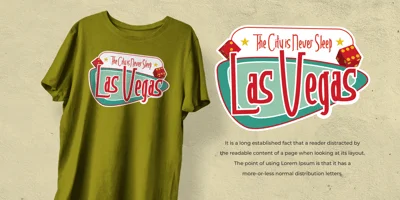
Bestie Gurls Font
Bestie Gurls Font is perfect for friendship celebration branding, girls' night out event posters, bestie photo album designs, friendship jewelry packaging, sisterhood club materials, girls' sleepover party invitations, BFF merchandise graphics, and heartwarming friendship marketing campaigns. This joyful typeface excels in applications where friendship bonds and sisterly connection are essential.
What makes Bestie Gurls Font so exciting is its heartwarming ability to capture the genuine joy and unbreakable bonds of female friendship through playful, sisterhood-inspired letterforms that embody the love between best friends and the special magic of sisterly connections. The font features cheerful character shapes with friendship influences and sisterly styling that evoke images of shared laughter, supportive hugs, and the precious moments that define lifelong friendships. Its friendship-focused design philosophy combines sisterly authenticity with contemporary charm, making it perfect for lifestyle brands seeking to convey friendship love, sisterly support, and connection to female friendship communities and bestie culture.
Bestie Gurls Font belongs to the friendship script font family, specifically designed for sisterhood and female friendship-themed branding applications. This typeface family emphasizes joyful visual connection through friendship-inspired styling and sisterly character elements, ensuring authentic friendship presentation across various female lifestyle and friendship celebration-focused design projects.
Celebrate sisterly bonds with Bestie Gurls Font, a typeface that embodies the joyful spirit of female friendship and sisterly love. This heartwarming font delivers exceptional connection for friendship applications, featuring comprehensive character sets with friendship symbols and sisterly punctuation marks that capture the essence of bestie bonds and female solidarity. Its lovingly crafted letterforms maintain excellent readability while preserving the authentic friendship aesthetic across various sizes, from small friendship bracelets to large sisterhood event displays. The font's distinctive friendship personality makes it invaluable for designers creating friendship brands, sisterhood materials, and bestie content where conveying love, support, and sisterly connection is crucial for engaging female friendship communities and sisterhood audiences seeking authentic friendship experiences and heartwarming, supportive female friendship bonds and sisterly celebration environments.